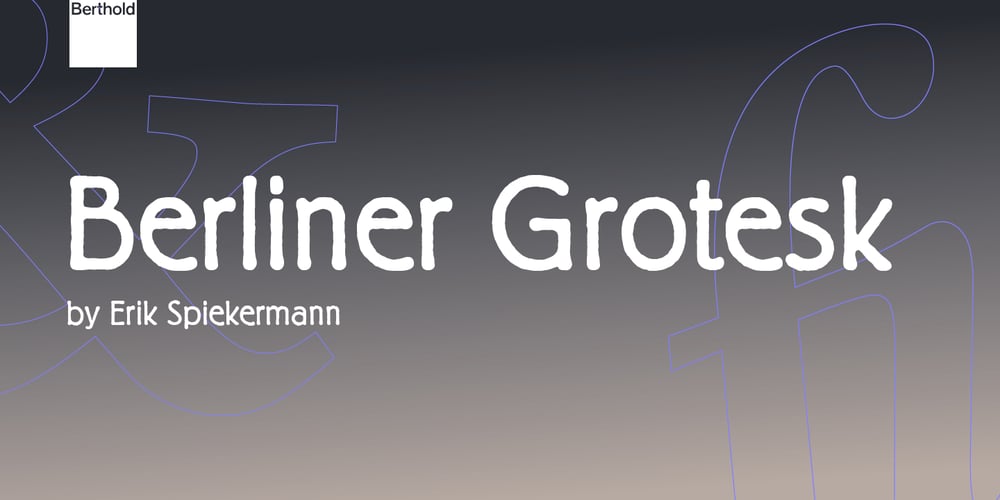
Berliner Grotesk Font Family was designed by Erik Spiekermann and published by Berthold. Berliner Grotesk contains 3 styles and family package options. Based on Berthold’s 1913 Berliner designed by Hausschnitt, Erik Spiekermann redesigned and digitized the typeface for the foundry. H. Berthold published Berliner Grotesk in 1979. This distinctive design with a high x-height, short descenders and rough edges is appropriate for advertising, displays and short blocks of text. The bold weight is particularly useful for “loud” headlines and ad copy.